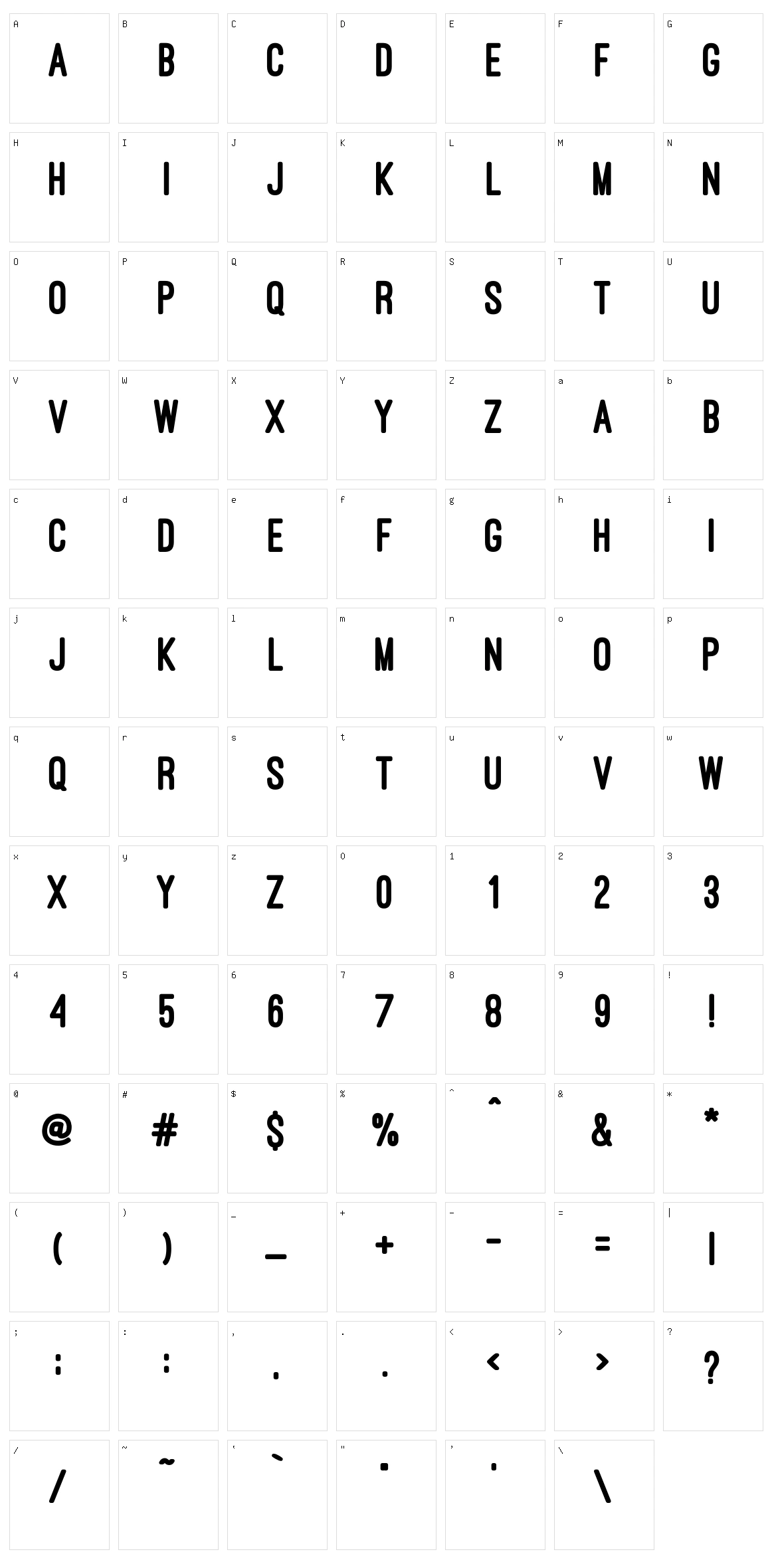
The free font Ostrich Sans Heavy is carefully designed by Tyler Finck, showcasing a thoughtful balance of creativity and usability and falls under the Sans serif font style. When you download the ZIP file, it contains only 14.11 KB of font files, making it lightweight and quick to download. Please review the license details below to understand permitted usage and distribution rights. If license information is not available, we recommend using this font for personal projects only or contacting the author directly for commercial usage permissions.